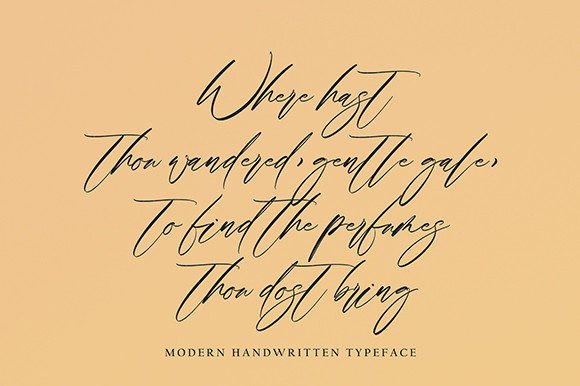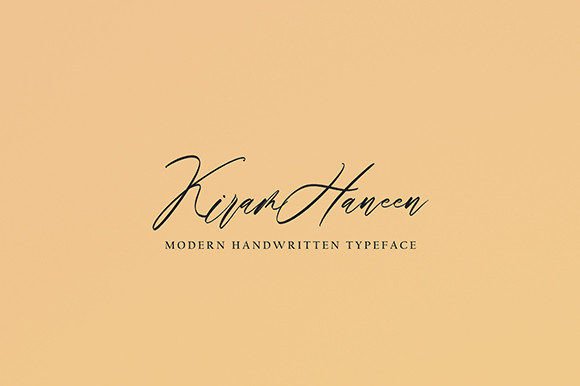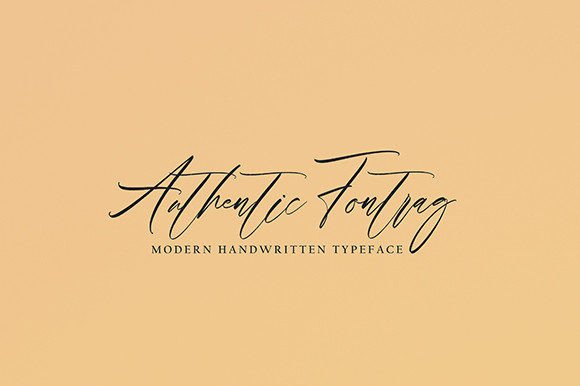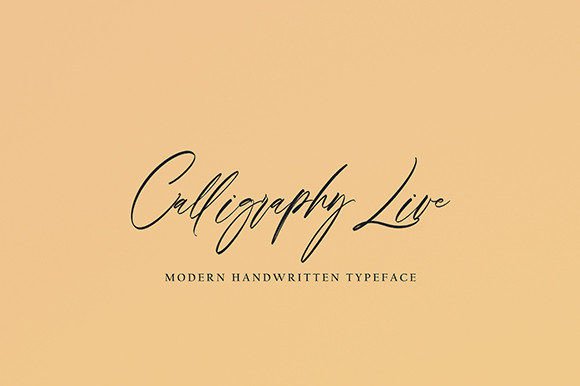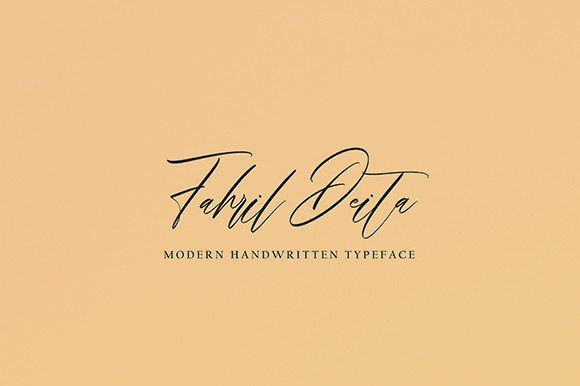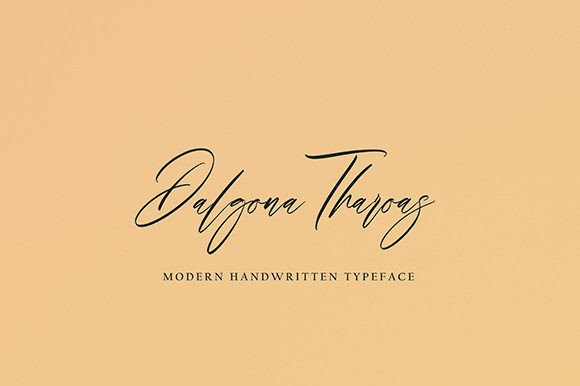
Introduction to Horeythonas Font
Have you ever been working on a creative project, pouring your heart and soul into every detail, only to feel like something’s missing? The perfect font can be the difference between a good design and a great one. That’s why we’re excited to introduce you to the Horeythonas Font – a sweet and cursive handwritten font that’s sure to add a touch of magic to your next project.
Whether you’re a seasoned designer or just starting out, the Horeythonas Font is a valuable resource that’s sure to elevate your designs. Its high quality and versatility make it perfect for a wide range of creative projects, from wedding invitations to social media graphics. And the best part? You can download it for free, complete with a transparent background, making it easy to use in any design software.
With its gentle, cursive script, the Horeythonas Font is the perfect addition to any design resource. Its joyful and romantic touch is sure to make your projects stand out, and its high quality ensures that your designs will always look professional and polished.
Key Features of Horeythonas Font
- High-quality, professional font suitable for creative projects, available for free download.
- Unique, elegant design with a transparent background, making it perfect for design resources and backgrounds.
- High-resolution design, suitable for print and digital use, with a resolution of 300 DPI.
- Perfect for designers looking for a versatile font to use in their creative projects, with a wide range of applications.
Honest Review: Horeythonas Font
I recently stumbled upon the Horeythonas Font while searching for a unique design resource for a creative project. As a designer, I was excited to try it out and see if it would meet my expectations.
Here’s what I like about the Horeythonas Font: ✨ It’s available for free download, which is a huge plus for designers on a budget. The font itself is of high quality, with a modern and sleek design that’s perfect for contemporary projects. It also comes with a transparent background, which makes it easy to customize and integrate into any design.
However, there are a few limitations to keep in mind: ⚠️ The font is limited to a specific style and genre, which may not be suitable for every project. Additionally, the font may not be compatible with all operating systems or software, so be sure to check compatibility before using it.
In conclusion, I was pleasantly surprised by the Horeythonas Font. While it may not be the perfect fit for every project, it’s a great design resource to have in your arsenal. With its high quality and modern design, it’s definitely worth checking out for your next creative project.
- Modern and sleek design
Horeythonas Font is a high-quality, free design resource ideal for various creative projects. This versatile font features a transparent background, making it perfect for overlaying on images or backgrounds.
Tips for Getting the Most Out of Horeythonas Font
For optimal results, experiment with different font sizes, colors, and styles to create visually appealing designs. You can also use the font in combination with other design resources to add depth and interest to your projects.
Common Use Cases for Horeythonas Font
Horeythonas Font is suitable for a wide range of creative projects, including graphics, logos, presentations, and documents. Its high-quality design and transparent background make it an ideal choice for designers and non-designers alike.